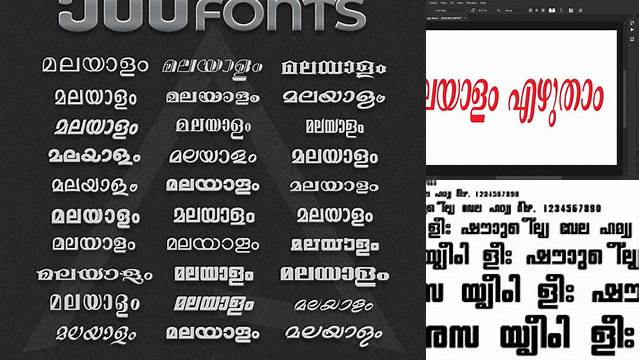
Malayalam Fonts For Photoshop: Your Ultimate Guide
Are you looking to enhance your creative projects with the beauty of Malayalam script? If so, then you've come to the right place. FML Malayalam fonts are essential tools for designers, typographers, and anyone working with Malayalam text in Photoshop. In this comprehensive guide, we'll dive deep into the world of FML Malayalam fonts, exploring their significance, how to find and install them, and tips for using them effectively in Photoshop. Whether you are creating stunning visuals, engaging social media content, or professional marketing materials, mastering the use of these fonts will significantly elevate your work. Let's embark on this journey together to unlock the full potential of Malayalam typography in your design projects!
Understanding the Importance of FML Malayalam Fonts
When it comes to digital design, fonts play a crucial role in conveying the right message and aesthetic. For those working with the Malayalam language, having access to high-quality FML Malayalam fonts is paramount. These fonts are specifically designed to render the complex characters and ligatures of the Malayalam script accurately, ensuring that your text is both legible and visually appealing. Using the correct fonts can transform a simple text-based design into a sophisticated piece of art. Imagine crafting a beautiful wedding invitation, designing a striking poster, or creating engaging social media graphics – the right font can make all the difference. Moreover, using appropriate Malayalam fonts demonstrates a respect for the language and culture, which can greatly enhance the credibility and impact of your work. So, whether you're a professional designer or a hobbyist, investing in a good collection of FML Malayalam fonts is an investment in the quality and effectiveness of your creative projects. These fonts not only ensure accurate rendering but also add a touch of authenticity and elegance to your designs.
Using FML Malayalam Fonts Effectively in Photoshop
Now that you've got your FML Malayalam fonts installed, let's talk about how to use them effectively in Photoshop. First off, when working with Malayalam text, it's crucial to ensure that your Photoshop settings are correctly configured to support complex scripts. Go to Edit > Preferences > Type and make sure that "Show Indic Options" is checked. This will enable you to access advanced typography features specific to Indic languages like Malayalam. When selecting a font, consider the overall tone and style of your design. A more formal font might be suitable for official documents or wedding invitations, while a more playful font could be perfect for social media graphics or children's books. Pay close attention to kerning and leading to ensure that your text is legible and visually appealing. Kerning adjusts the spacing between individual letters, while leading adjusts the spacing between lines of text. Experiment with different font sizes and weights to find the perfect balance for your design. Also, consider using different colors and effects to make your text stand out. Remember, the goal is to create text that is not only beautiful but also easy to read. By mastering these techniques, you can create stunning designs that effectively communicate your message in Malayalam. Have fun experimenting and exploring the endless possibilities!
Tips and Tricks for Working with Malayalam Typography
Working with Malayalam typography in Photoshop can be a rewarding experience, but it also comes with its own set of challenges. Here are some tips and tricks to help you create stunning designs. First, always use high-quality fonts that are specifically designed for the Malayalam script. Avoid using generic fonts that may not accurately render the complex characters and ligatures. Second, pay close attention to the spacing between letters and lines. Malayalam script can sometimes appear crowded, so adjusting the kerning and leading can significantly improve readability. Third, experiment with different font weights and styles to find the perfect balance for your design. Bold fonts can be great for headlines, while lighter fonts may be more suitable for body text. Fourth, consider using different colors and effects to make your text stand out. However, be careful not to overdo it, as too many colors or effects can make your text difficult to read. Fifth, always proofread your text carefully to ensure that there are no spelling or grammatical errors. Malayalam can be a complex language, so it's easy to make mistakes. Finally, don't be afraid to experiment and try new things. The more you work with Malayalam typography, the better you'll become at it. By following these tips and tricks, you can create beautiful and effective designs that showcase the beauty of the Malayalam language. So, go ahead and unleash your creativity!
Even with the best preparation, you might encounter some common issues when working with FML Malayalam fonts in Photoshop. One frequent problem is that the fonts don't display correctly, showing up as boxes or garbled characters. This usually happens because Photoshop isn't properly configured to handle complex scripts. To fix this, go to Edit > Preferences > Type and ensure that "Show Indic Options" is checked. Another issue can be that certain characters or ligatures are missing. This might be due to the font not fully supporting all Malayalam characters. In this case, try using a different font or updating your current font to the latest version. Sometimes, the fonts may appear pixelated or blurry, especially at smaller sizes. To resolve this, try increasing the font size or using a font with better rendering quality. If you're still having trouble, try clearing Photoshop's font cache or restarting your computer. Additionally, make sure that your graphics card drivers are up to date, as outdated drivers can sometimes cause display issues. Don't hesitate to consult online forums and communities for solutions. There are many designers and typographers who have likely faced similar challenges and can offer valuable advice. By troubleshooting these common issues, you can ensure a smooth and enjoyable experience working with FML Malayalam fonts in Photoshop.
Conclusion: Elevate Your Designs with FML Malayalam Fonts
In conclusion, mastering the use of FML Malayalam fonts in Photoshop can significantly elevate your designs and bring a touch of authenticity and elegance to your creative projects. By understanding the importance of these fonts, knowing where to find and install them, and learning how to use them effectively, you can create stunning visuals that resonate with your audience. Remember to configure Photoshop correctly to support complex scripts, pay attention to kerning and leading, and experiment with different font styles and effects. Don't be afraid to explore new fonts and techniques, and always proofread your text carefully. By following the tips and tricks outlined in this guide, you can overcome common issues and create designs that truly stand out. So, go ahead and unleash your creativity, and let the beauty of the Malayalam script shine through your work. Whether you're designing wedding invitations, social media graphics, or marketing materials, FML Malayalam fonts will help you create impactful and visually appealing designs that capture the essence of the Malayalam language and culture. Happy designing, folks!